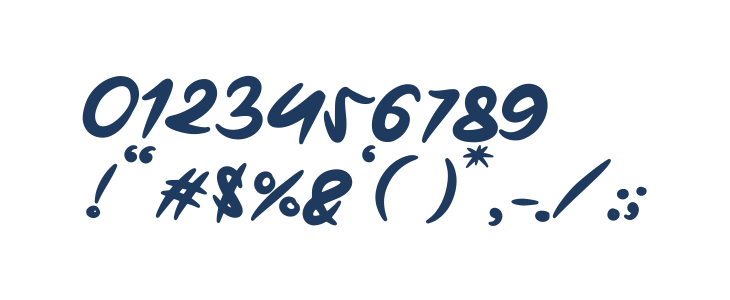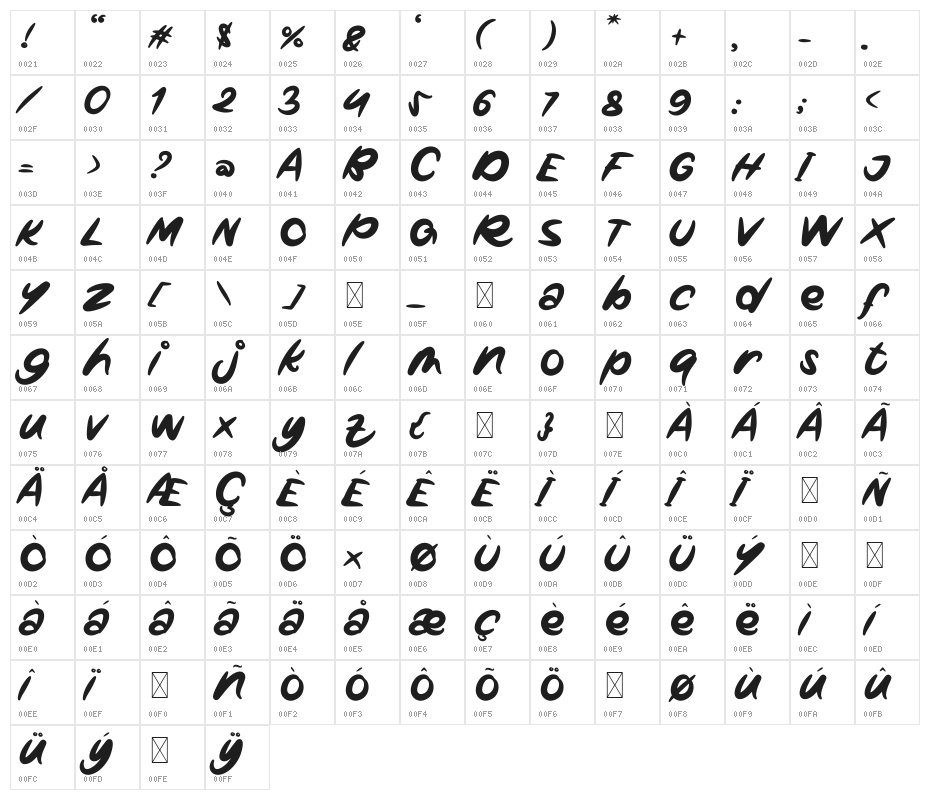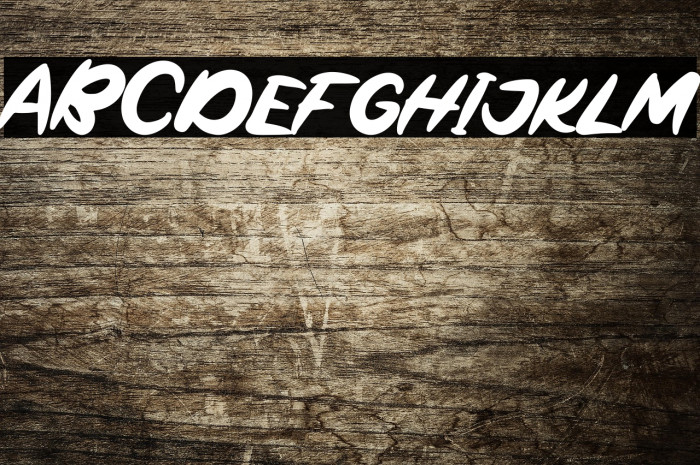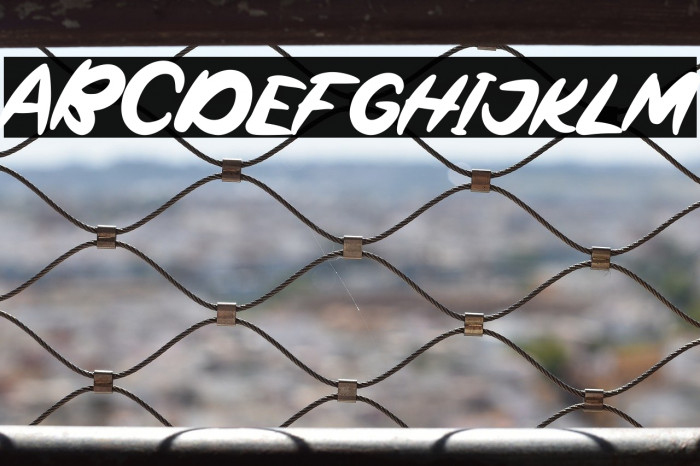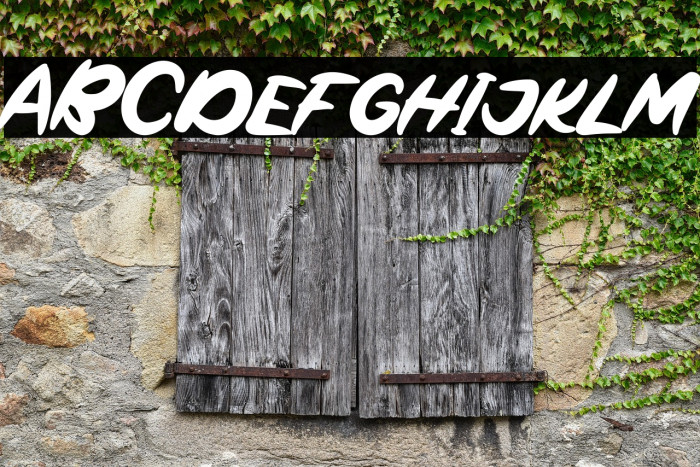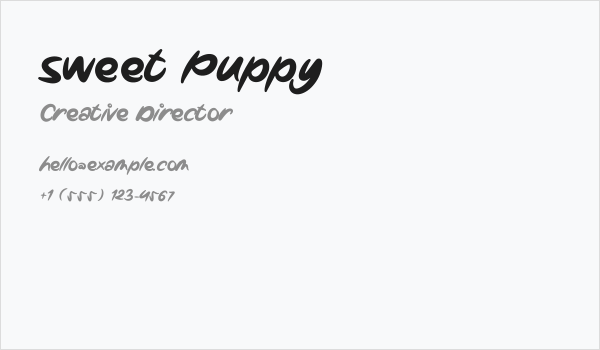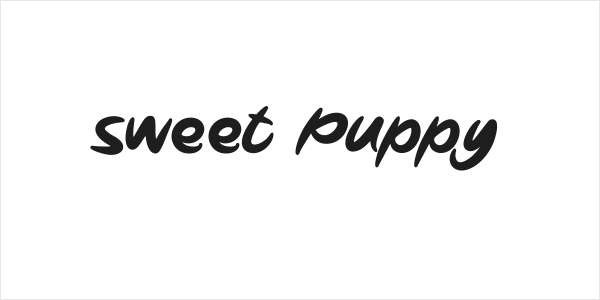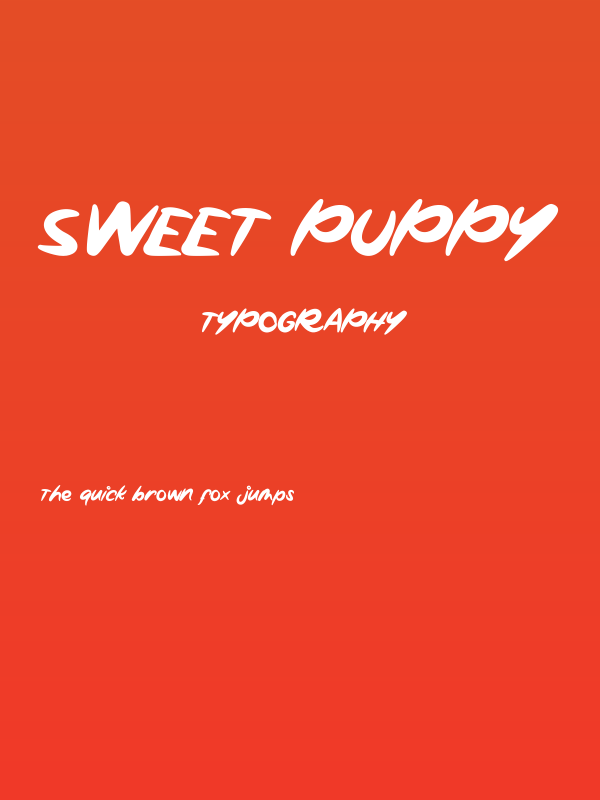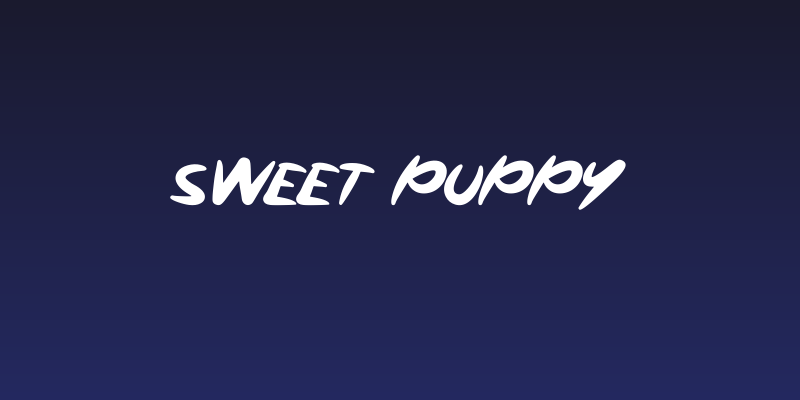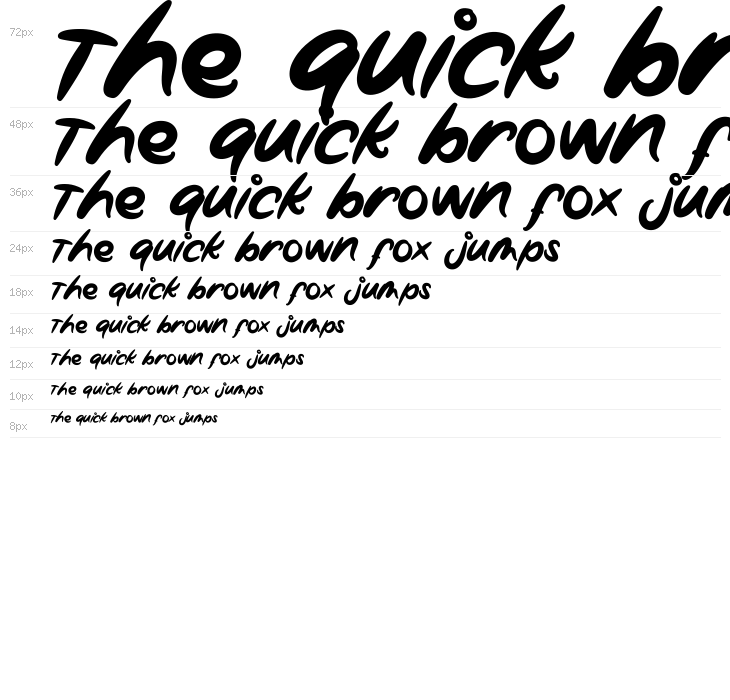
Sweet Puppy Font
Sweet Puppy Description
This playful and energetic font features bold, rounded strokes with a handwritten style that exudes a sense of fun and creativity. The characters are slightly slanted, giving a dynamic flow to the text. Uppercase and lowercase letters are well-balanced, with a consistent stroke width that maintains readability. The numbers and special characters are designed with the same lively spirit, making them suitable for a variety of informal applications. The font's overall appearance is friendly and approachable, making it ideal for projects that aim to convey warmth and personality.
| Proposed Projects | Great for children's books, playful branding, greeting cards, and creative posters. |